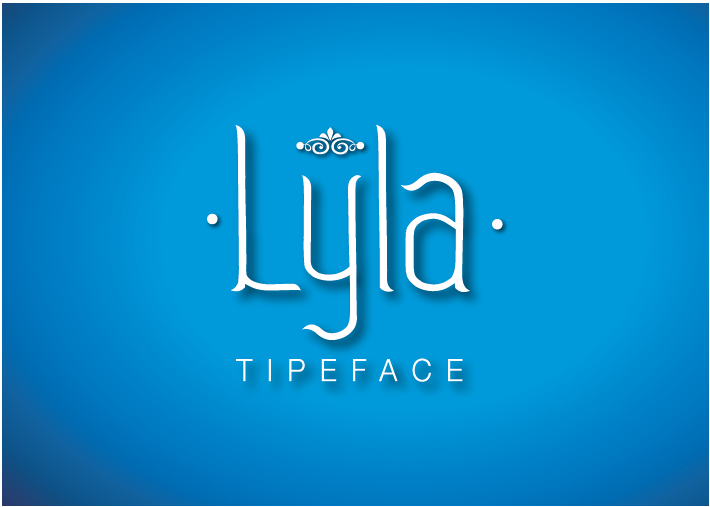
Introduction to Lyla Font
Lyla, a hand-drawn font.
Key Features of Lyla Font
Why Choose Lyla Font?
Lyla Font offers exceptional quality and versatility, making it a valuable addition to your design toolkit. Whether you’re creating for personal projects or commercial use, Lyla Font delivers professional results.